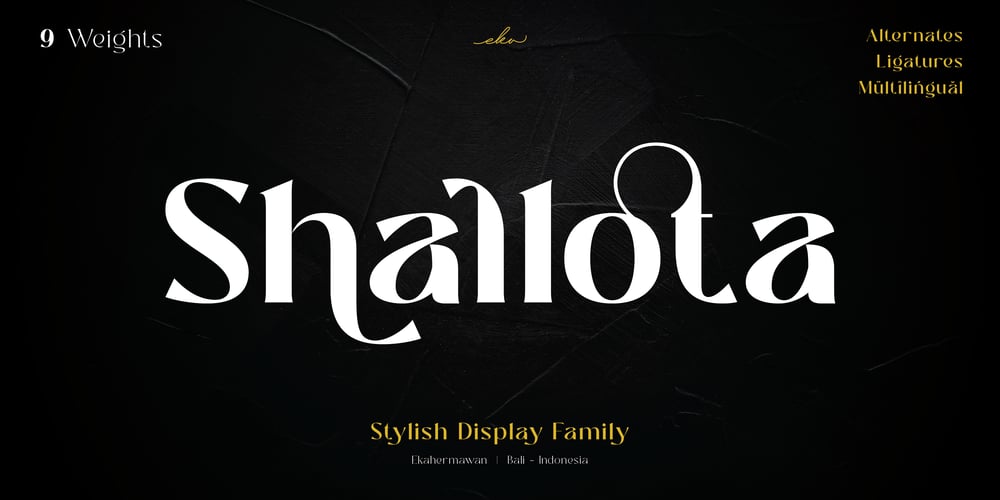
Shallota
Shallota font
Shallota Font Family was designed by Putu Eka Hermawan and published by Ekahermawan. Shallota contains 9 styles and family package options. Shallota is stylish designed font for any display use with 9 weights from Thin to Black.Shallota also includes a bunch of alternate characters (PUA Encoded) and ligatures to give you a wide range for create an unique typographic design results.Shallota is versatile font for many different projects such as logo, branding, poster, magazines, labels, merchandise, invitation, presentation, advertising, quotes and so much more!FEATURES:* OpenType support* Playfull to use (with ligatures and alternates options)* Multilingual support* PUA EncodedIf you need support or more information about this itemplease kindly contact me :ekahermawanputu@gmail.comThank you so much..I really hope you enjoy when using it!